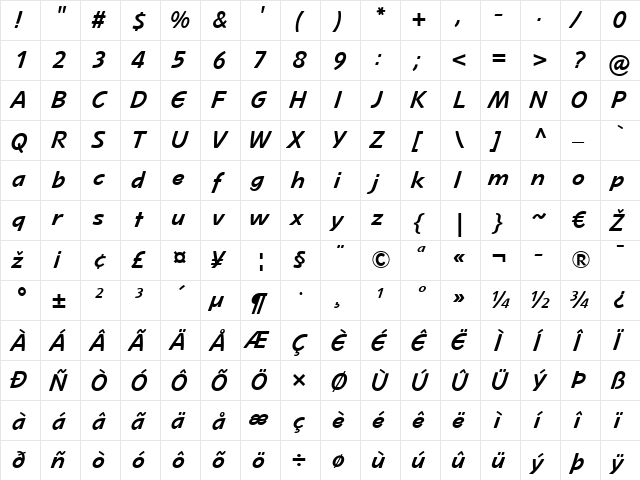
Mano LT Light Bold
| Designer | Marco Ganz |
Design Context for Mano LT Light Typeface
Mano LT Light takes a measured approach to typography — its balanced proportions and neutral character make it a reliable workhorse for both digital and print work. The heavy weight commands attention and anchors typographic hierarchies.